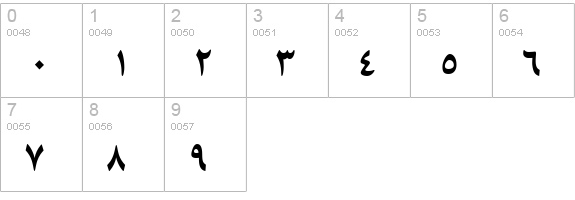
B Zar Bold Font Details
B Zar Bold is a strong, high-contrast variant in the B typeface family \xE2\x80\x94 well suited to headlines, attention-grabbing titles, and strong calls-to-action.
B Zar Bold is a striking and versatile font that demands attention with its bold and confident appearance. With its strong and impactful letterforms, this font exudes a sense of power and authority, making it perfect for headlines, titles, and other prominent text. The sharp edges and clean lines of B Zar Bold give it a modern and edgy look that is sure to make a statement. What sets B Zar Bold apart is not just its bold design, but also the fact that it is available for free download at FontsMarket.com. This means that you can easily access this impressive font without breaking the bank, making it a valuable addition to your font collection. Whether you're designing a poster, logo, or website, B Zar Bold is sure to make your text stand out and leave a lasting impression. Download B Zar Bold today and unleash the power of bold typography in your projects.